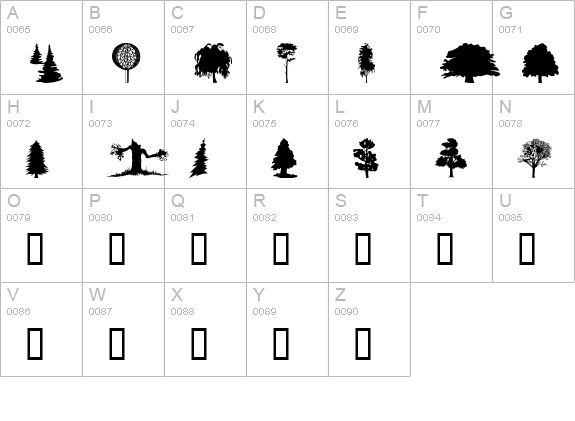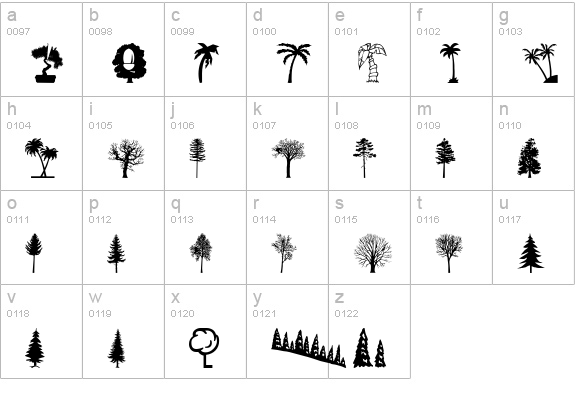
wmtrees1 Font Details
The wmtrees1 font is a beautifully crafted typeface that exudes elegance and sophistication. Featuring intricate tree-inspired details, this font is perfect for adding a touch of nature to your design projects. The wmtrees1 font is available for free download at FontsMarket.com, making it easily accessible for all designers looking to elevate their work with a unique and eye-catching font. With its graceful curves and leafy motifs, the wmtrees1 font is sure to bring a touch of organic charm to any design. Download it today and let your creativity bloom!